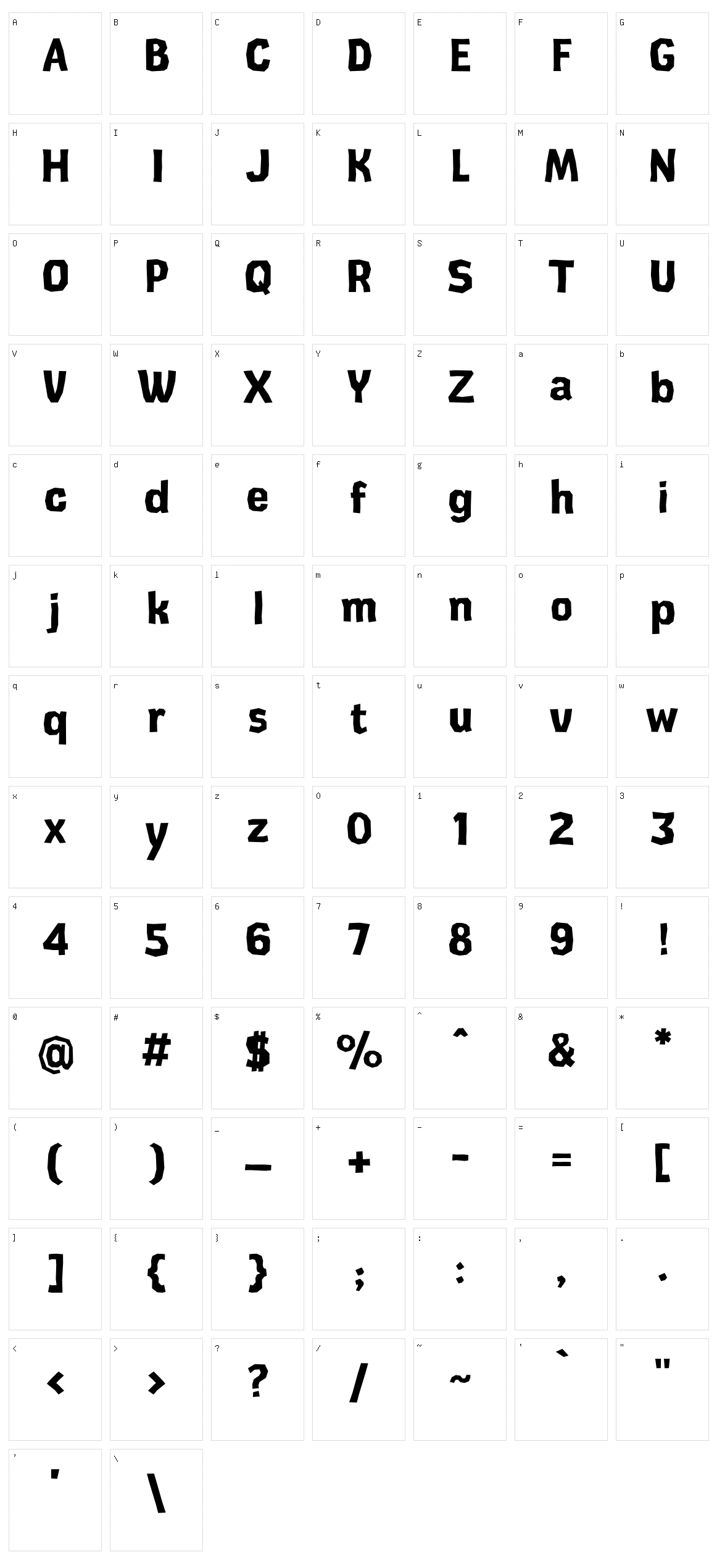
The free font Cardboard Cat is carefully designed by Studio Dot by dot, showcasing a thoughtful balance of creativity and usability and falls under the Cartoon font style. When you download the ZIP file, it contains only 58.94 KB of font files, making it lightweight and quick to download. Please review the license details below to understand permitted usage and distribution rights. If license information is not available, we recommend using this font for personal projects only or contacting the author directly for commercial usage permissions.